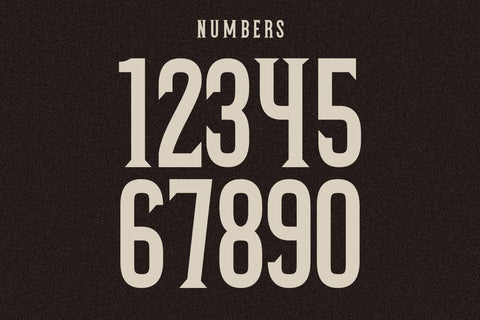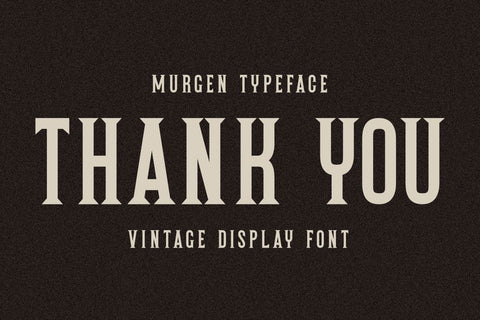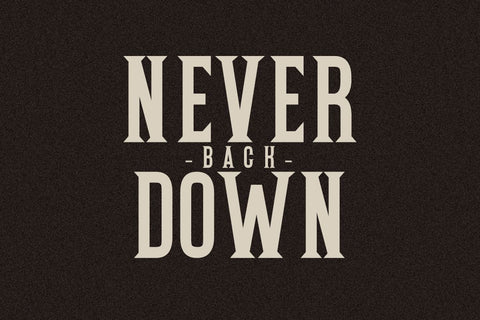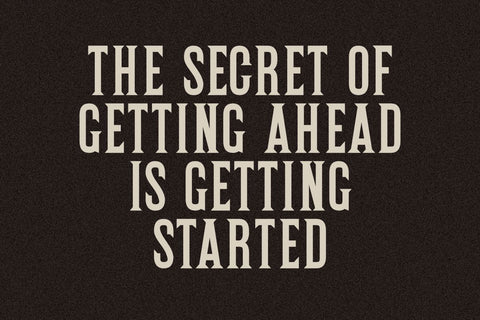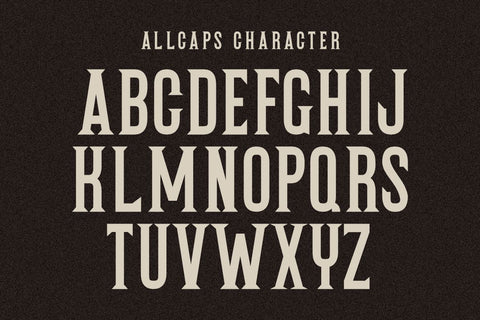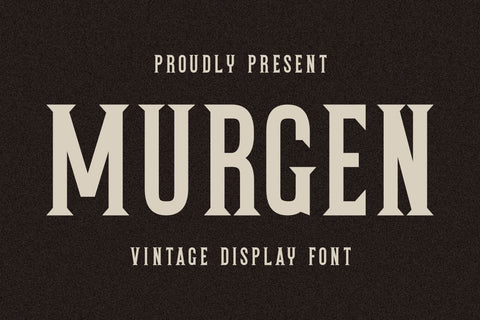
Murgen - Vintage Font
Murgen is a bold vintage display font with a classic and commanding presence, perfect for projects that demand strength and character. With its tall, sharp serifs and retro style, this font is ideal for Cricut crafters, sublimation designs, and Print On Demand products such as t-shirts, mugs, posters, tote bags, and signage. Whether you’re creating western-inspired graphics, sports team merchandise, or bold statement quotes, Murgen adds impact and timeless charm. Available in OTF and TTF formats, fully PUA encoded, and easy to use with cutting machines and crafting software.